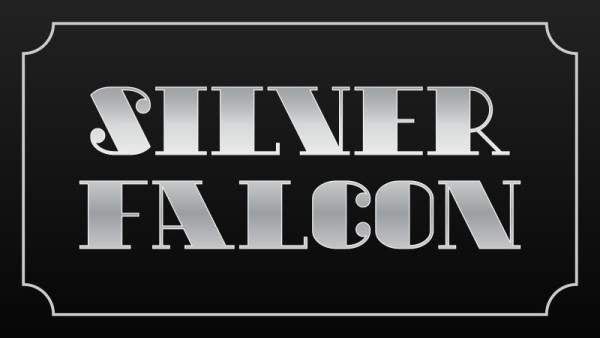
Silver Falcon Font
Silver Falcon Font, This font is perfect for stickers, retro projects, craft projects, shirts, svg designs, procreate designs, branding, blogs, logos, invitations and more!